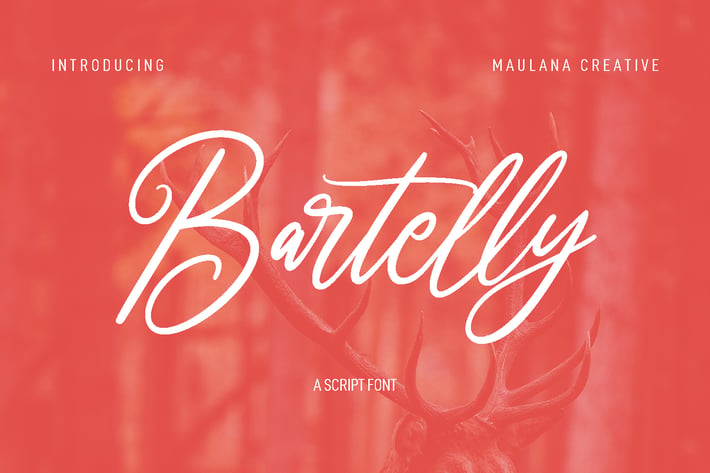
Bartelly Script Font
Bartelly is a fancy handwritten script font. With thin contrast stroke, fun character with a bit of ligatures and alternates. To give you an extra creative work. Bartelly font support multilingual more than 100+ language. This font is good for logo design, Social media, Movie Titles, Books Titles, a short text even a long text letter and good for your secondary text font with sans or serif. Make a stunning work with Bartelly font.